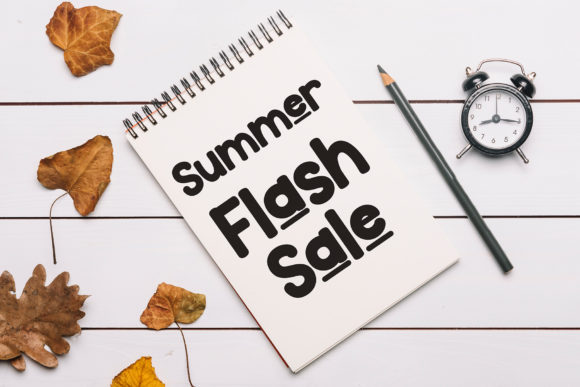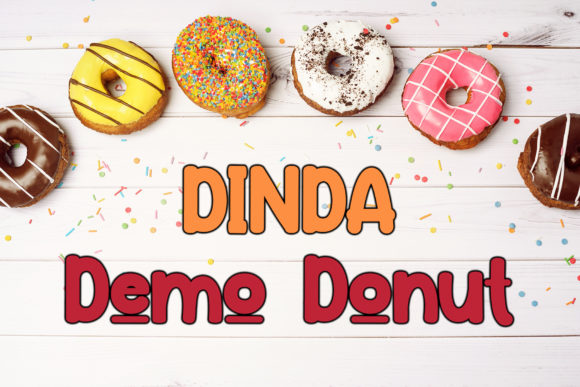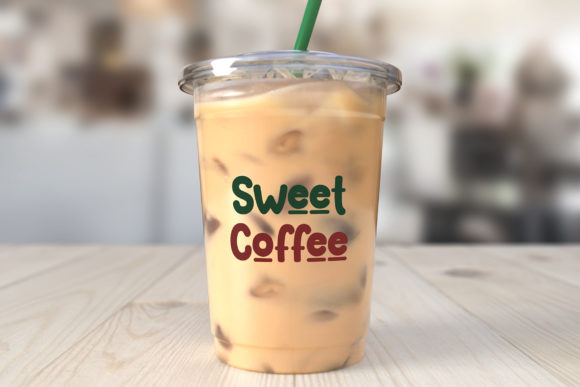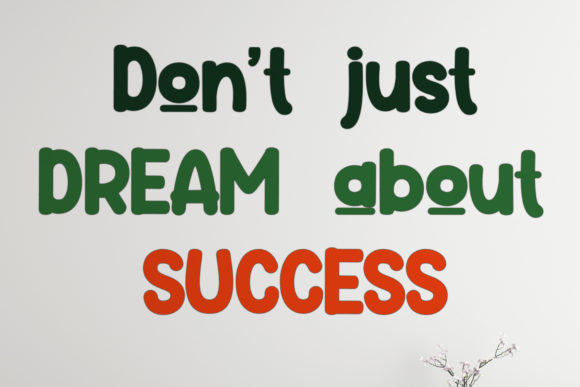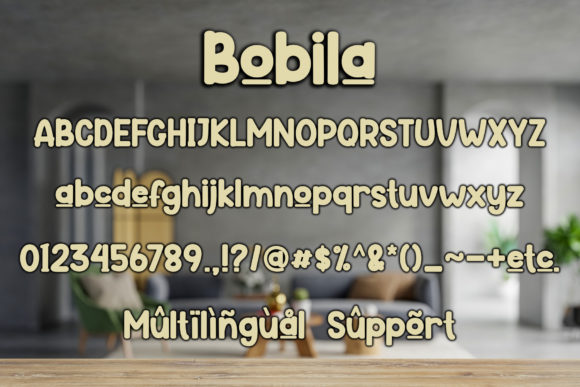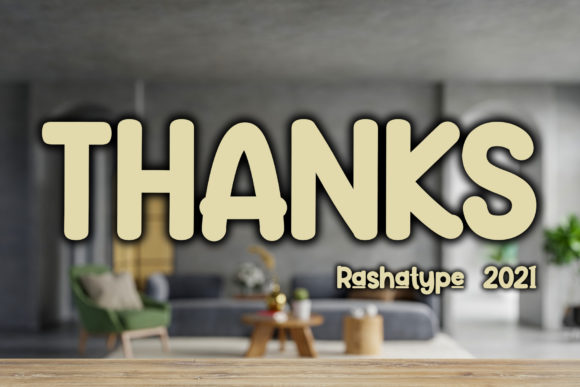
Discover the Perfect Display Font for Your Next Design Project
Have you ever been working on a design project, staring at a blank canvas, and suddenly, the perfect font pops into your head? That’s exactly what happened when I first laid eyes on the Bobila Font. Its unique blend of cool and casual vibes had me hooked from the very start.
Bobila Font is a display font designed to make a statement on any poster, flyer, or print. Its versatility and aesthetic appeal make it a valuable addition to any designer’s toolkit. Whether you’re creating a bold marketing campaign or a visually striking art piece, Bobila Font is sure to elevate your design to the next level.
With its endless possibilities, Bobila Font is an exciting font to explore and experiment with. From adding a touch of sophistication to a minimalist design to making a bold statement in a crowded market, Bobila Font is the perfect choice for designers looking to take their work to the next level.
Key Features of Bobila Font
- Unique Characteristic: The font features a unique blend of traditional and modern design elements, making it a versatile choice for a wide range of applications, from body text to headlines.
Bobila Font Review
Overall, I think the Bobila font is a decent addition to any designer’s toolkit. Here are some things that I think work well:
- ✨ It’s highly legible, especially at smaller font sizes. The clear letterforms make it perfect for body text.
- ✨ The font has a modern feel to it, which can be a great asset for contemporary design projects.
- ✨ The Bobila font supports a wide range of languages, making it a versatile option for designers who work with global clients.
However, there are a few limitations that might hold you back:
- ⚠️ The font lacks a strong personality or distinctive character. While it’s easy to read, it’s not particularly memorable or attention-grabbing.
- ⚠️ The Bobila font might not be the best choice for headings or titles, as it can feel a bit generic and unremarkable.
- ⚠️ Some users have reported issues with font rendering on certain platforms or devices.
Overall, I’d say the Bobila font is a solid, if unremarkable, choice for designers who need a clean and legible font for body text. It’s not the most exciting option, but it gets the job done.
The Bobila font is ideal for use in headings, titles, and other prominent text elements. It’s also great for creating a unique and eye-catching visual identity for your brand. To get the most out of the Bobila font, experiment with different font sizes, colors, and styles to create a cohesive and visually appealing design.